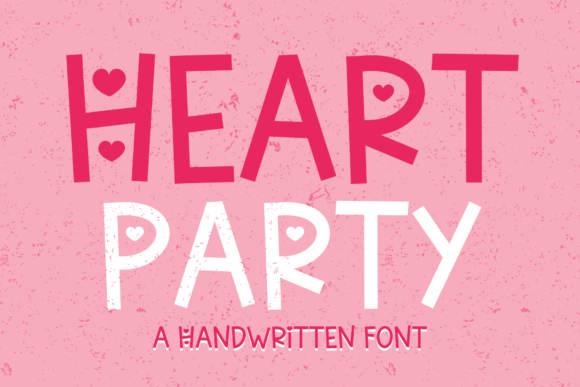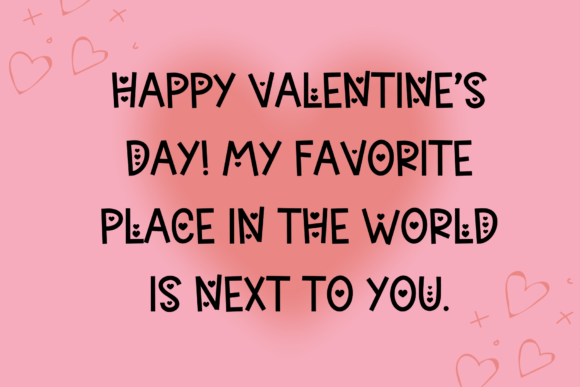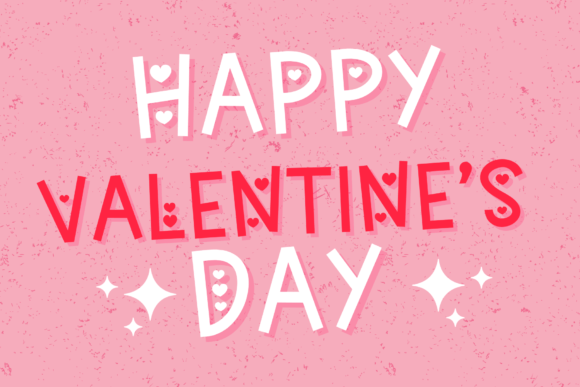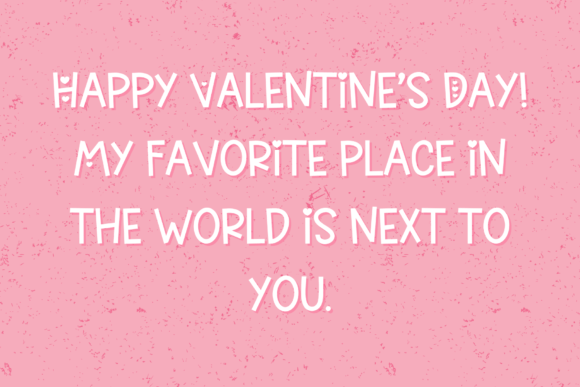
Heart Party Font: A Cute Handwritten Font for Cricut & Crafts
About the Heart Party Font
The wait is over! The incredible Heart Party Font is now available for your design toolkit. Heart Party is a cute handwritten decorative font. It embodies playfulness and authenticity and is the perfect choice for all your favorite projects, or even for blog posts, logos, branding, ads, invitations, greeting cards, planners, photo albums, decorations, and much more. Add it to any of your designs, and enjoy the results!
Heart Party’s playful, hand-drawn aesthetic makes it ideal for projects requiring a touch of whimsy, such as children’s books, invitations, and branding for businesses targeting a young, fun-loving demographic. It works well in headlines, short captions, and logos, adding a charming, approachable feel. However, its decorative nature makes it unsuitable for body text or UI elements where readability is paramount.
Consider pairing Heart Party with a clean sans-serif like Open Sans for a balanced contrast, or a more geometric sans-serif such as Montserrat for a modern twist. For a more traditional feel, a simple serif like Merriweather could be used. Avoid pairing it with overly ornate or heavily stylized fonts which could create visual clutter.
Heart Party’s overall personality is best described as cheerful and informal. It evokes feelings of fun, friendliness, and authenticity. This makes it a strong choice for projects that need a lighthearted, approachable style.
Heart Party Font Usage Examples
Heart Party Font Example